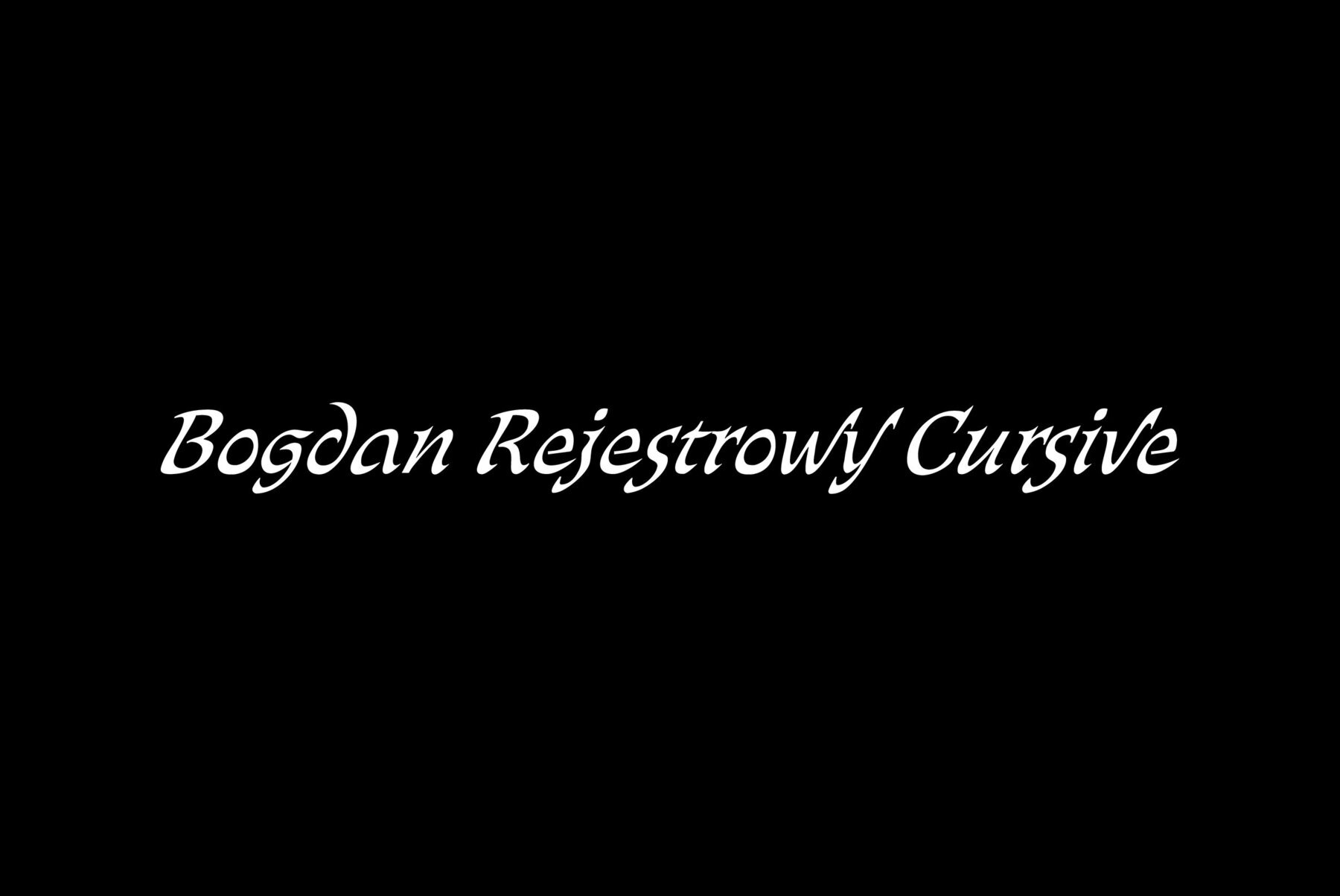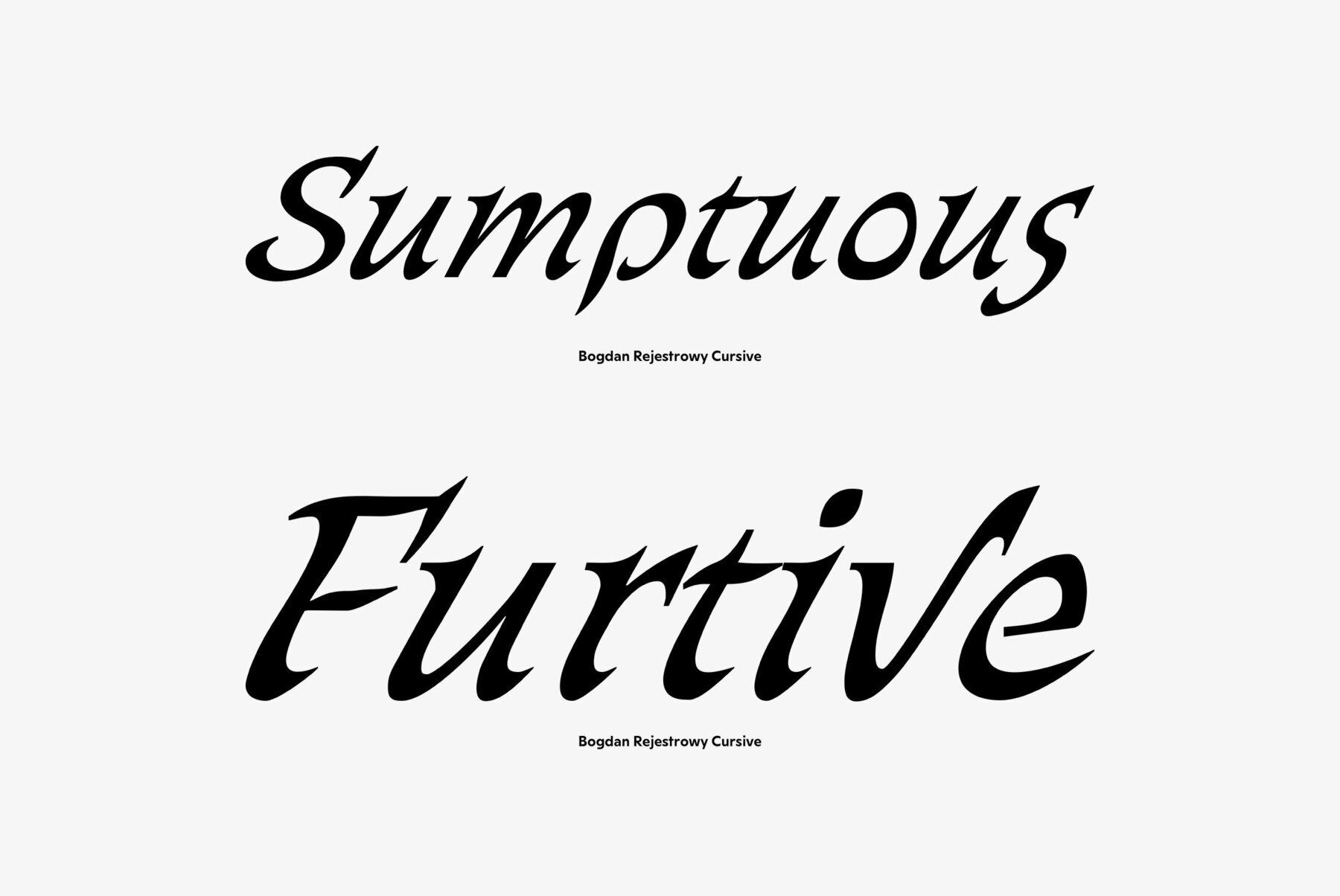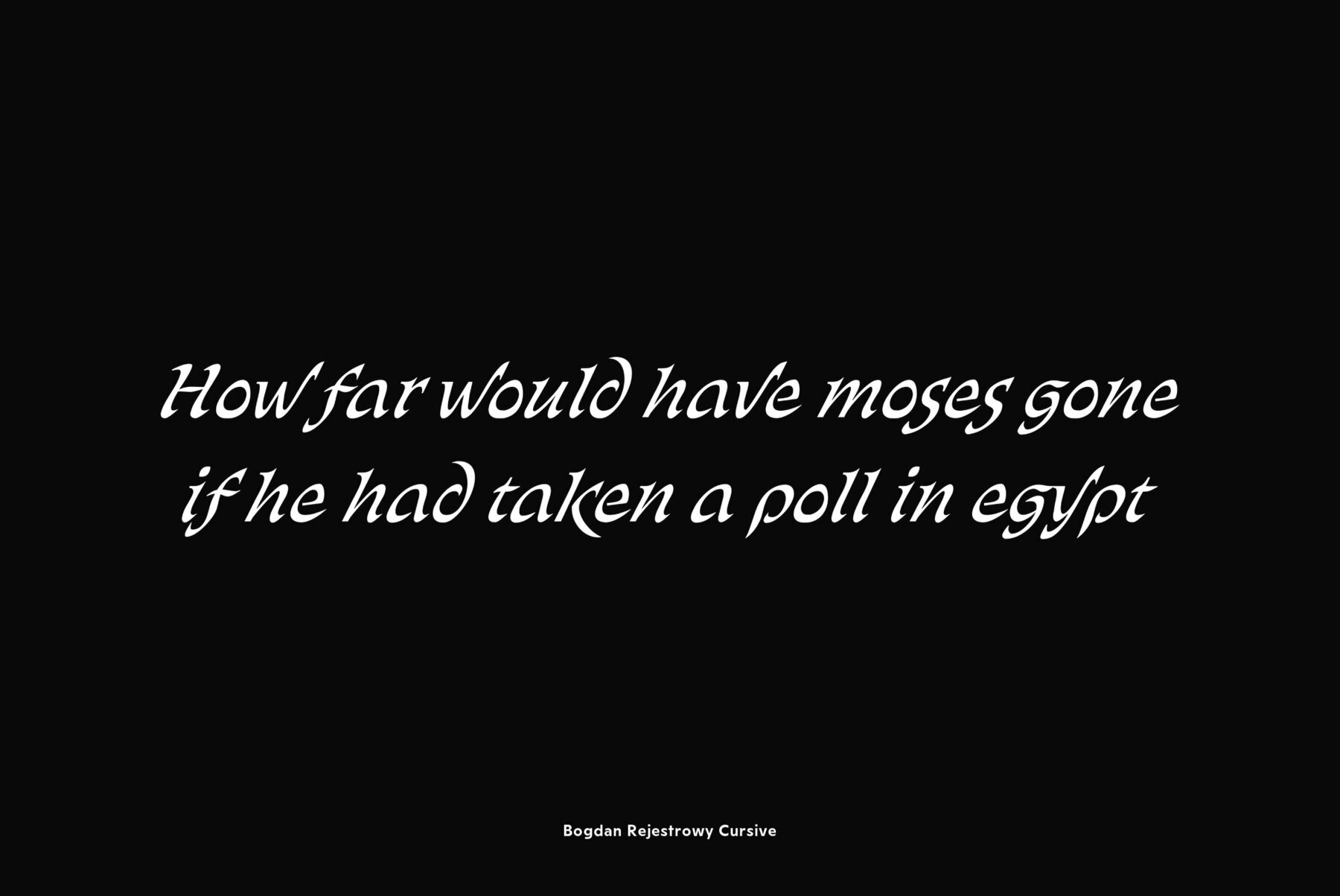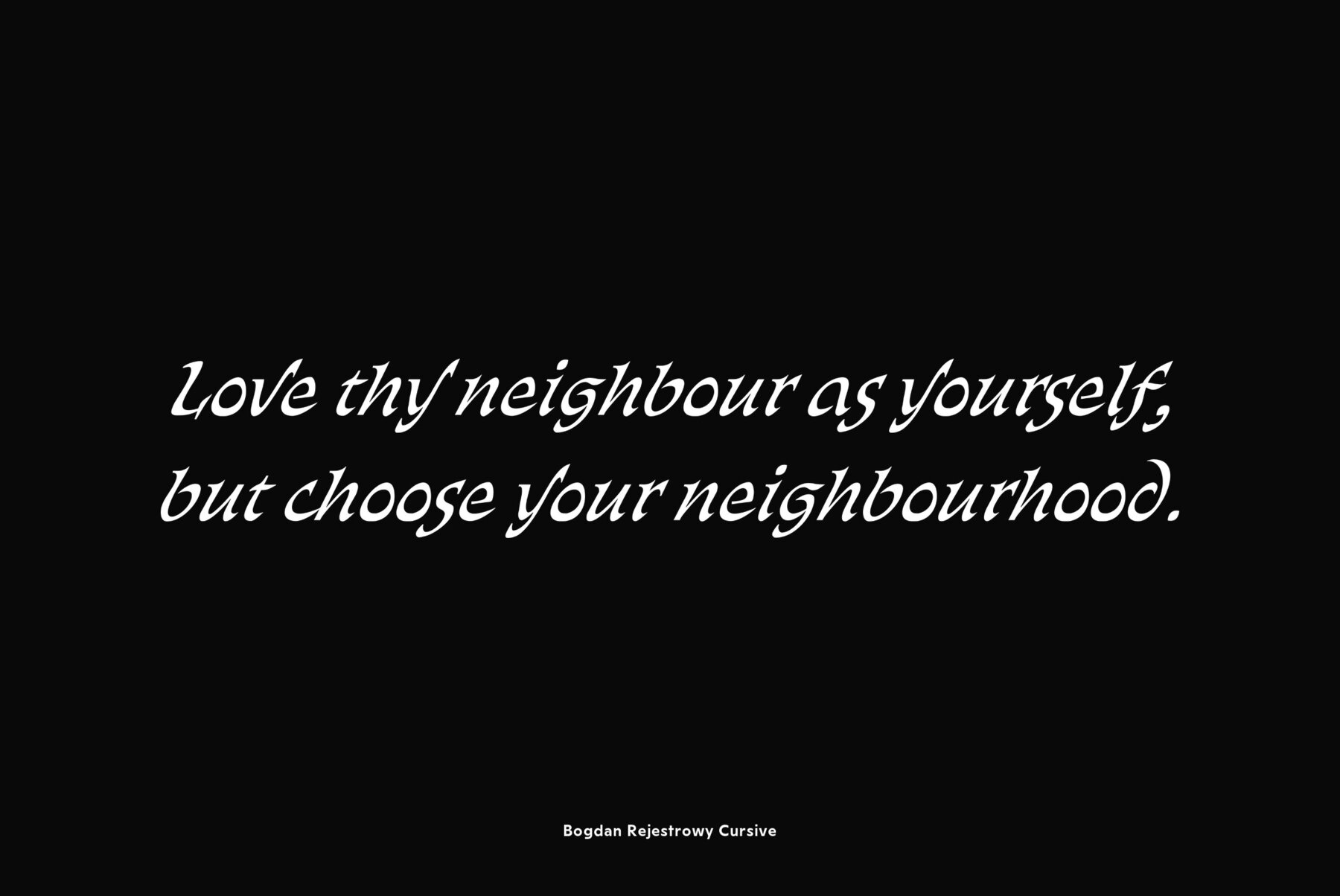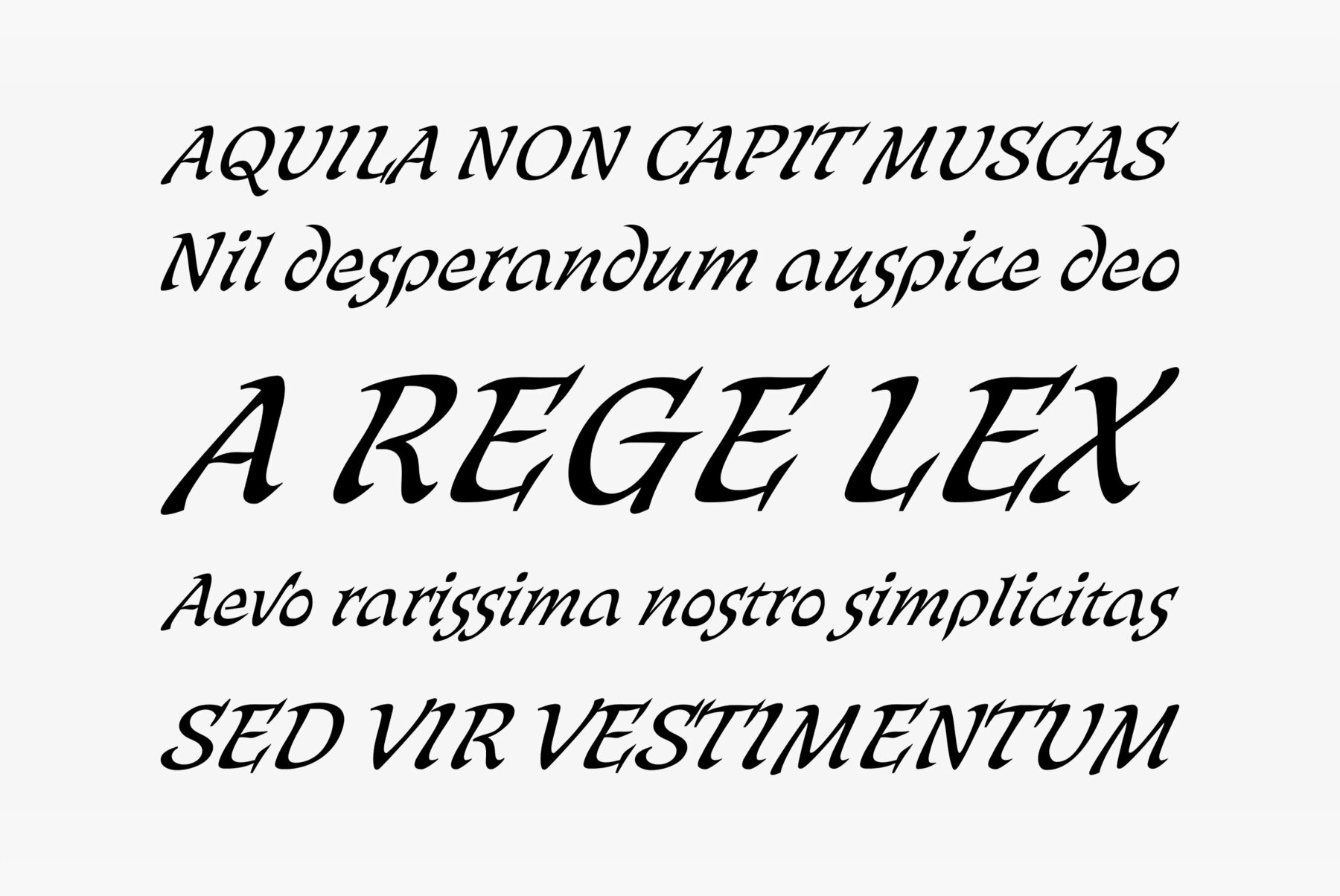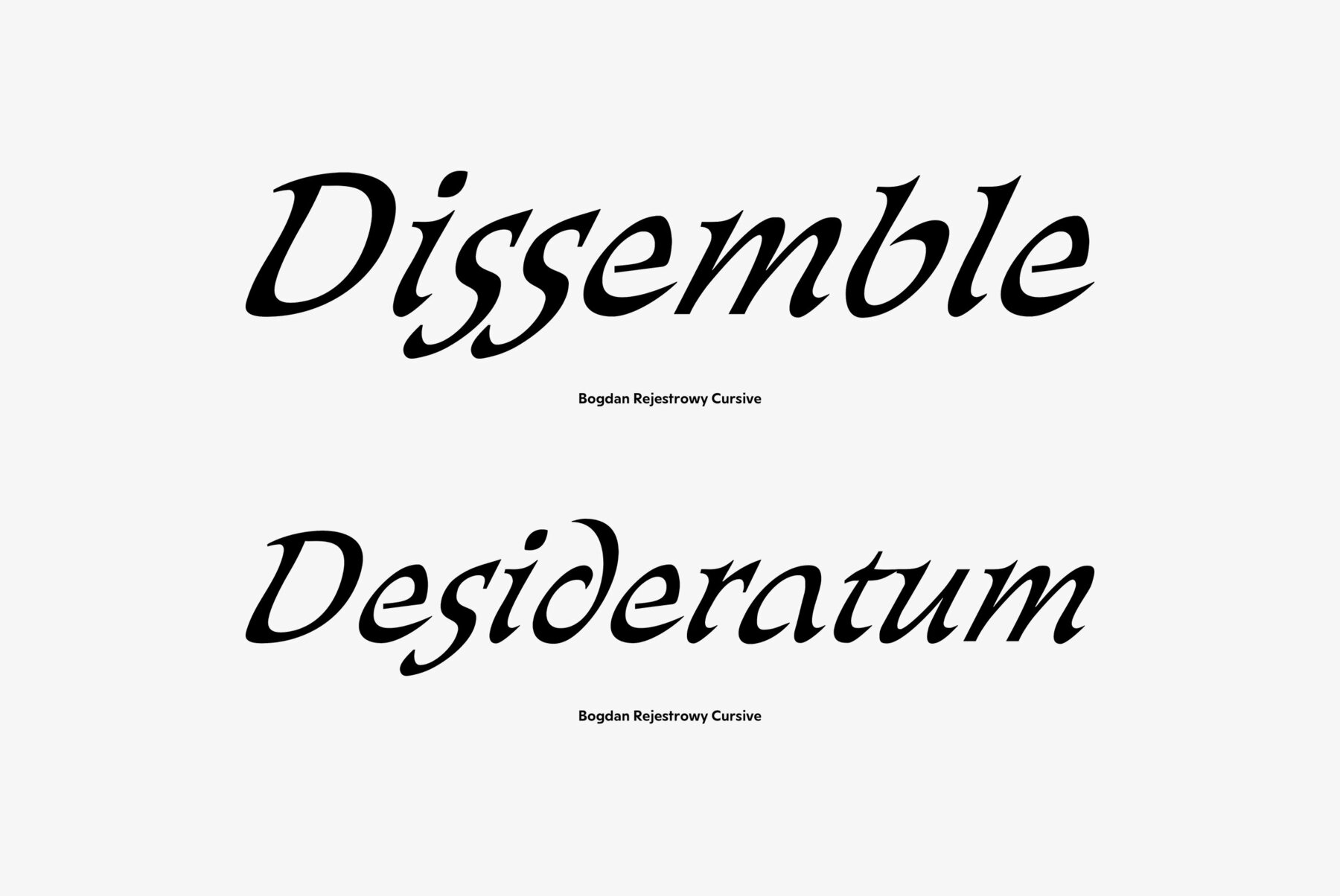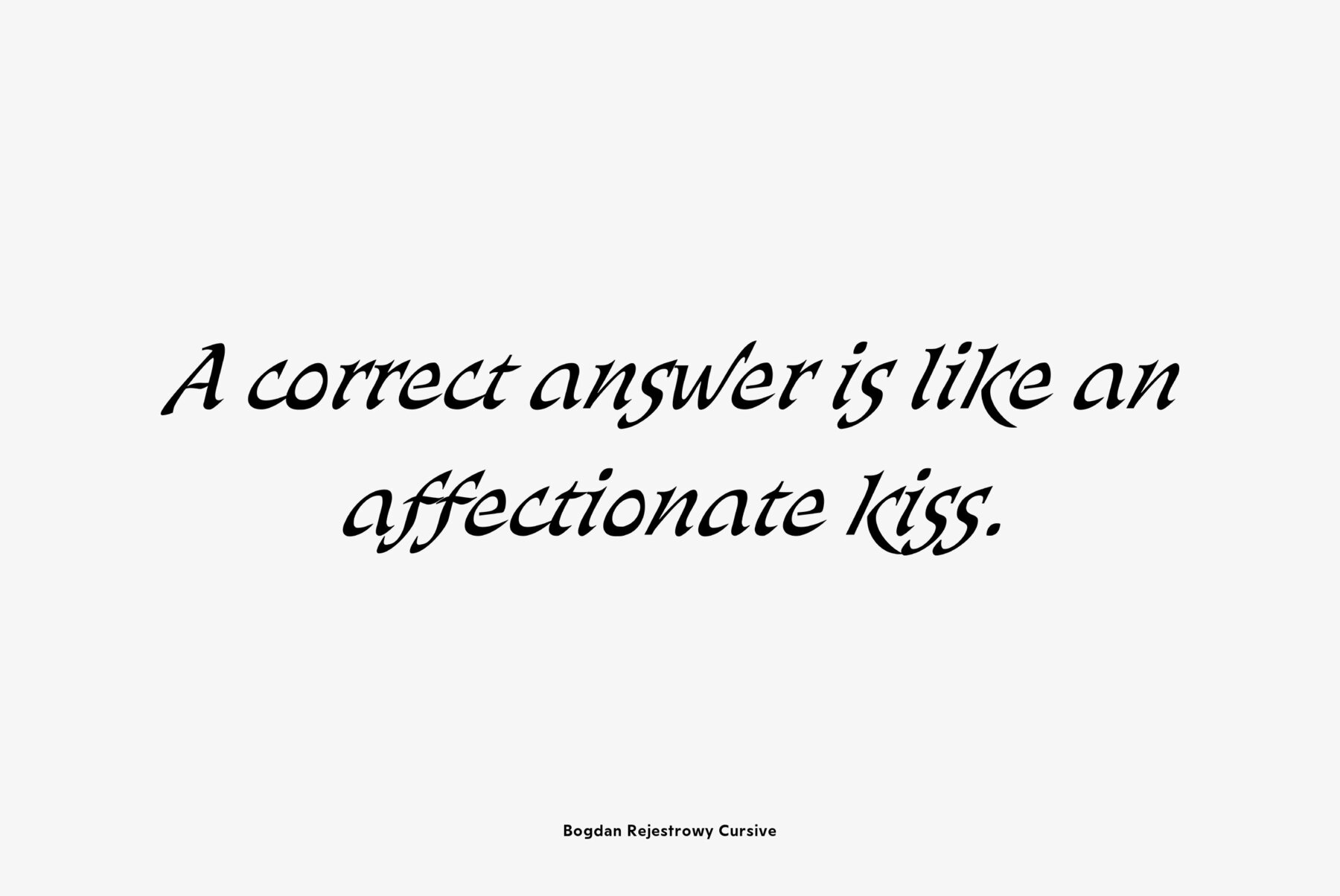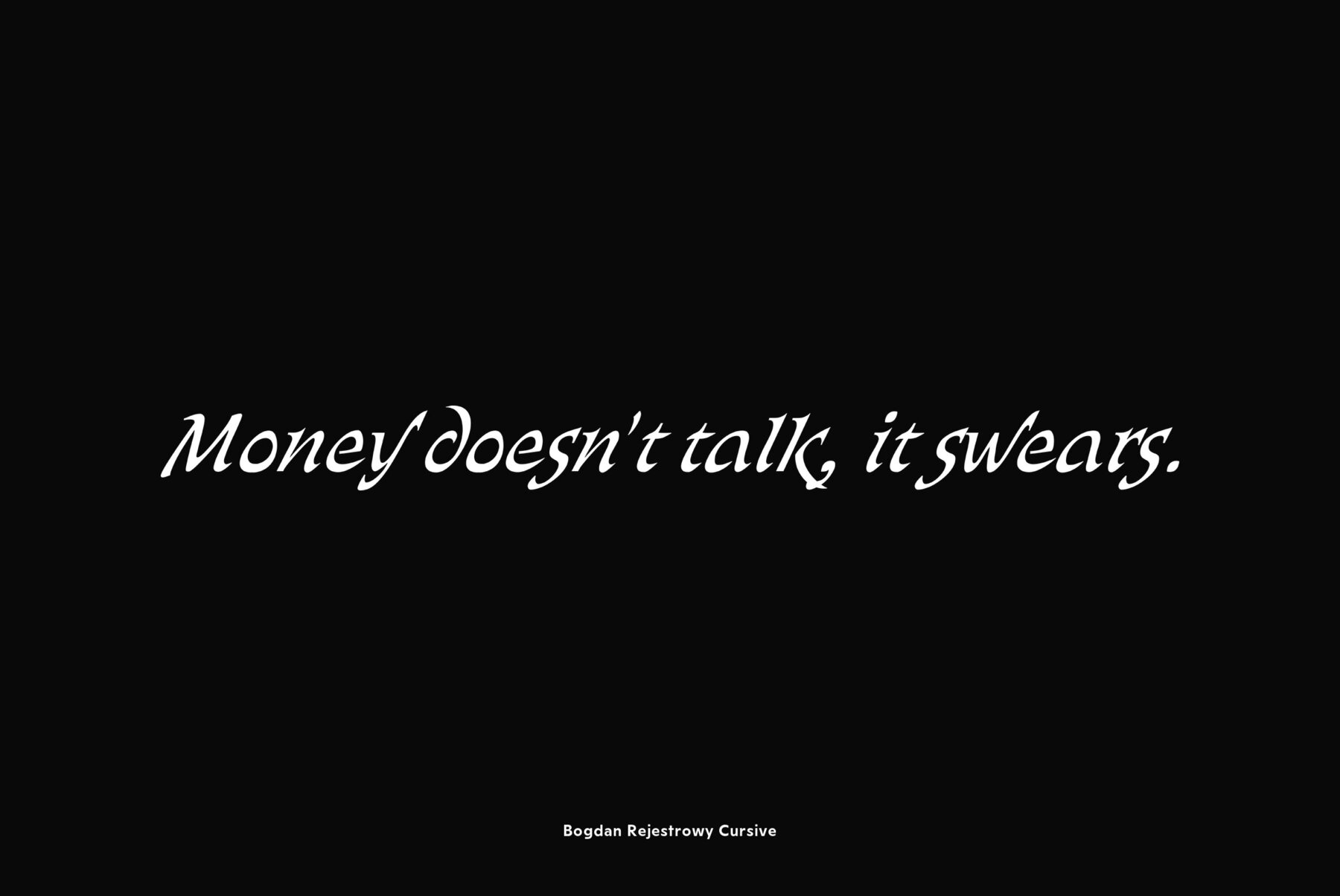
Bogdan Rejestrowy Cursive
An original script font designed by Victor Kharyk and licensed by ParaType in 2006. Based on Ukrainian Skoropis (fast handwriting) of 16-17th centuries. The font was named after Ukrainian Getman Bogdan Khmelnitsky, because the main sources and inspirations for the project were taken from collection of handwriting Universals (decrees) of that time -- the middle of 17th century. The shape of letters imitates flat nib quill handwriting with stress, bringing them informal liveliness. Bogdan font character set contains Cyrillic, Old Slavonic , Glagolitic, Latin and Greek alphabets in two variants: Rejestrowy (Regular) and Siczowy (Alternate). The font is for use in display typography, but can work quite well for short text setting. Bogdan type is well suited for historical and cultural texts associated with Europe of 15-17th centuries